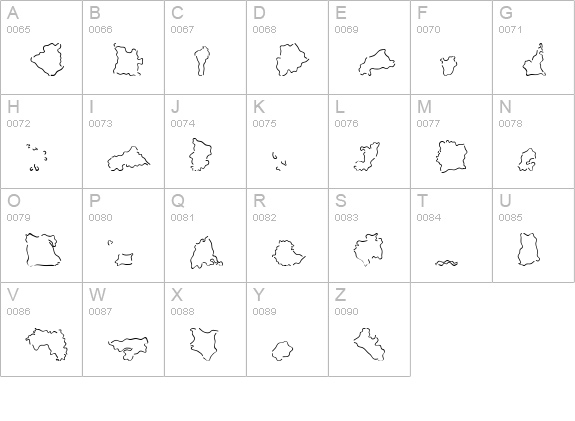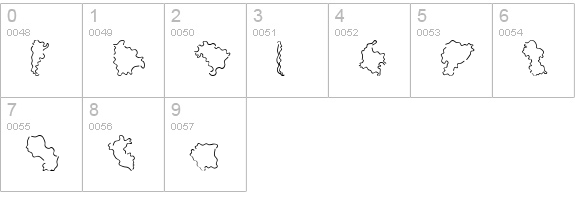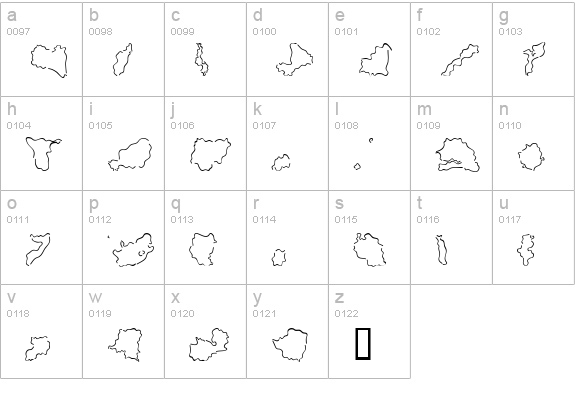
Mini Pics Global S Loose Font Details
Mini Pics Global S Loose is a charming and versatile font that exudes a sense of fun and creativity. With its quirky and playful design, this font is perfect for adding a touch of whimsy to any project. The loose spacing between letters gives it a unique and distinctive look that is sure to make your text stand out. What's even better is that Mini Pics Global S Loose is available for free download at FontsMarket.com. You can easily access this font and use it for personal or commercial projects without any restrictions. So why wait? Add a touch of personality to your designs with Mini Pics Global S Loose today!